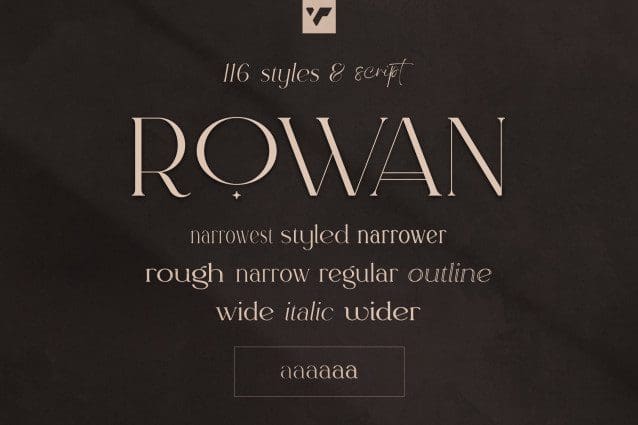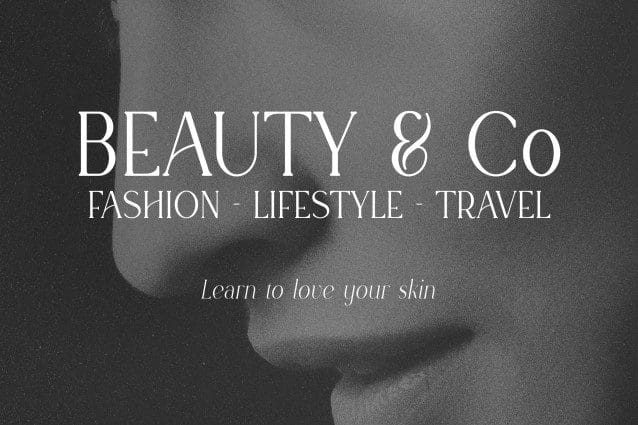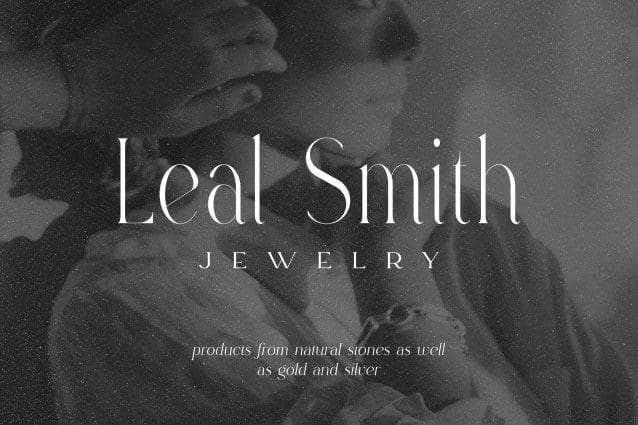
Rowan Font
Rowan Font: The vintage-inspired typeface made for creatives! With a cool combination of 116 font styles and 87 languages, this unique typography provides the perfect finishing touch to your projects. Whether you’re after something narrow or wide – rough or smooth – we’ve got it all covered with 6 weight options, alternate glyphs, ligatures…you name it!